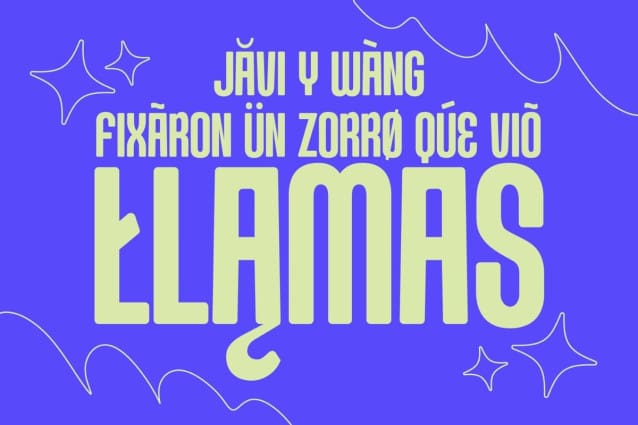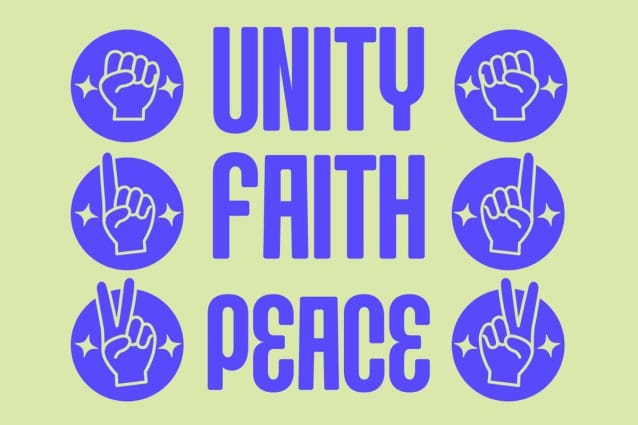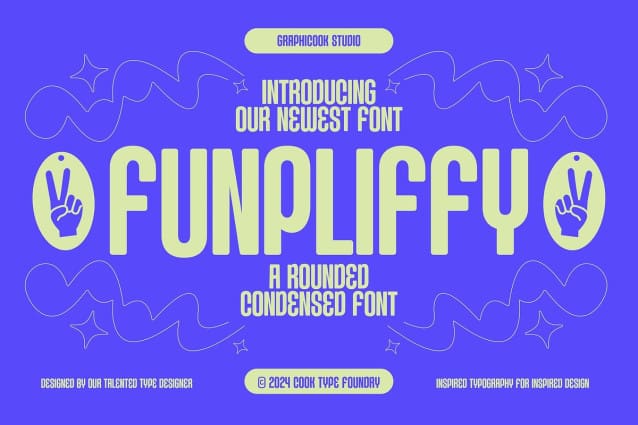
Funpliffy Font
Funpliffy Font a playful charm with its uniquely rounded letter style, making it ideal for projects that require a touch of playfulness.
Funpliffy is perfect for headlines, logotypes, magazines, packaging, quotes, movies, games, cover albums, book covers, and flyers, it’s a perfect solution for creating eye-catching designs that stand out in any context.